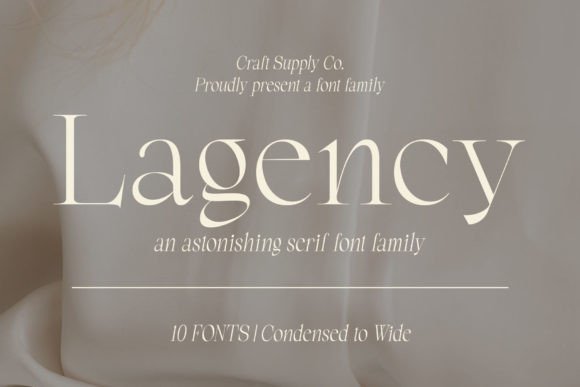
Introducing Lagency Font, a serif masterpiece that's poised to elevate your creative projects to a whole new level of sophistication. This charming font exudes a fashionable flair, effortlessly blending classic elegance with a contemporary edge. Each letter is meticulously crafted, adorned with delicate curves and sharp serifs, ensuring a visually stunning appeal that commands attention.
Step into the world of luxury, elegance, and femininity with Lagency Font. Its refined character makes it the perfect choice for fashion-forward projects, invitations, branding, and any design endeavor that demands a touch of timeless sophistication. Whether you're a seasoned crafter seeking to elevate your Cricut creations or an aspiring artist searching for a distinguishing font, Lagency Font is your perfect muse.
Discover the endless possibilities that await you with Lagency Font. Its versatile nature adapts seamlessly to various design styles, from vintage to modern, and everything in between. Unleash your creativity and let your imagination run wild as you transform ordinary projects into masterpieces. Lagency Font is the ultimate companion for crafting wedding invitations, designing logos and branding materials, composing social media posts, and creating eye-catching marketing campaigns.
With Lagency Font in your design arsenal, you'll have the power to evoke emotions, capture attention, and leave a lasting impression. Its exquisite details and impeccable balance make it a font that resonates with your audience, creating a connection that goes beyond aesthetics. Experience the magic of Lagency Font today, and unlock the gateway to a world of creative brilliance.